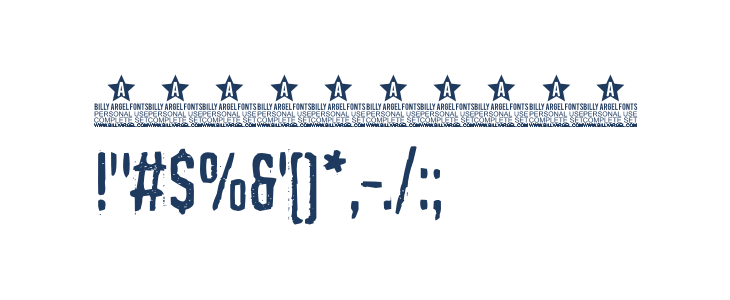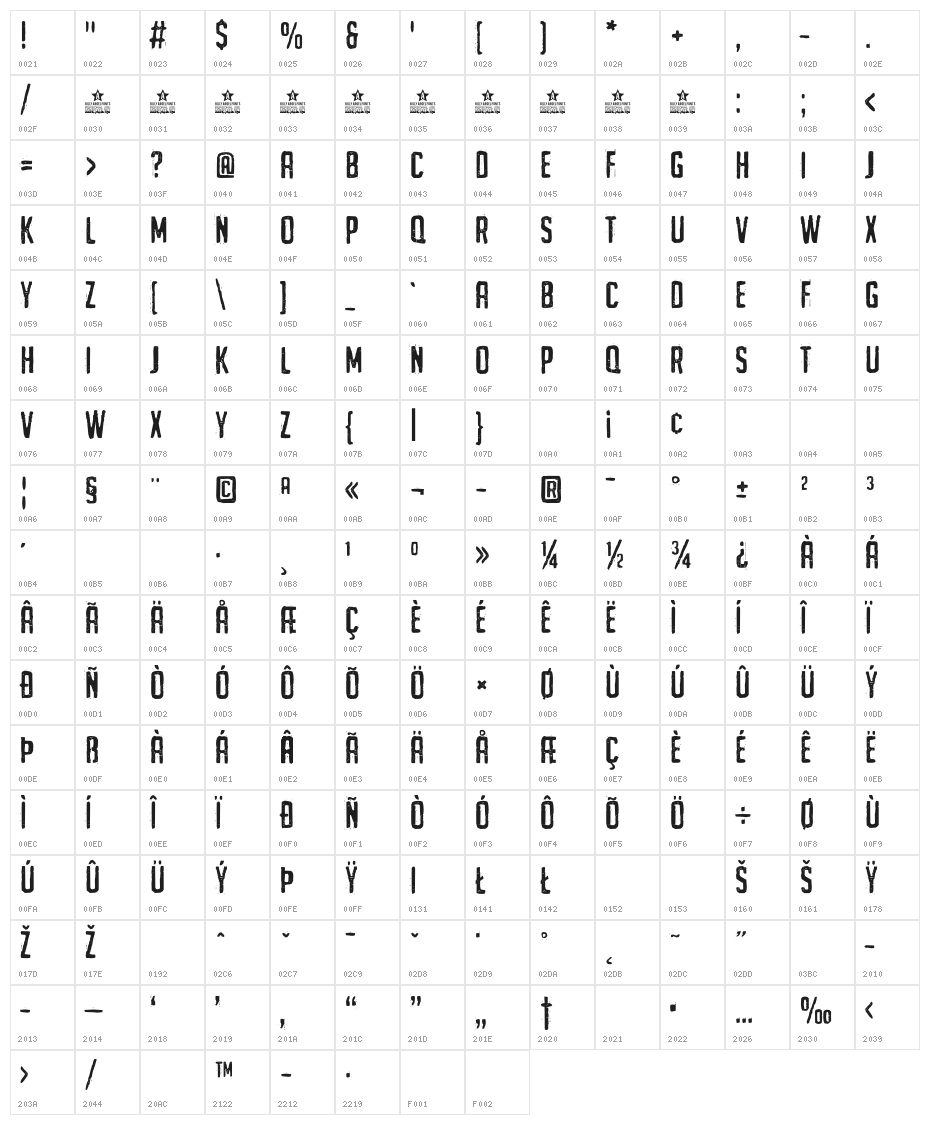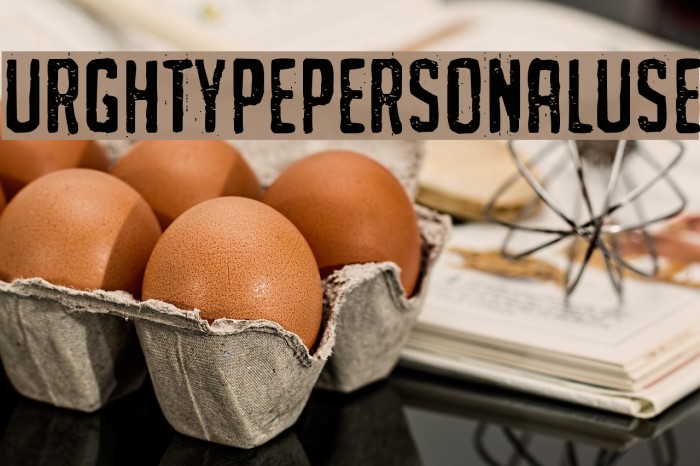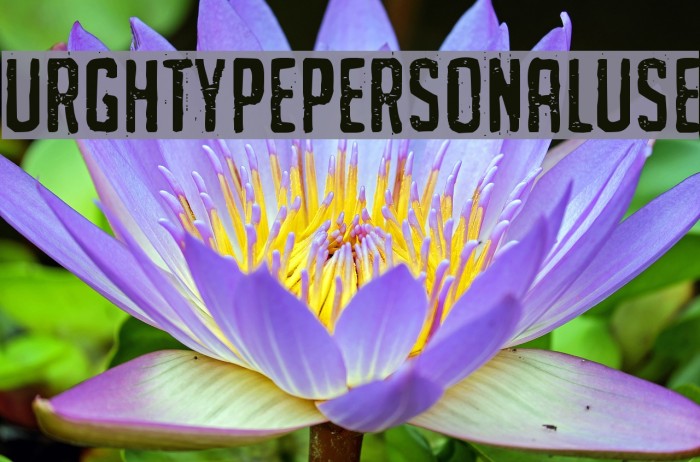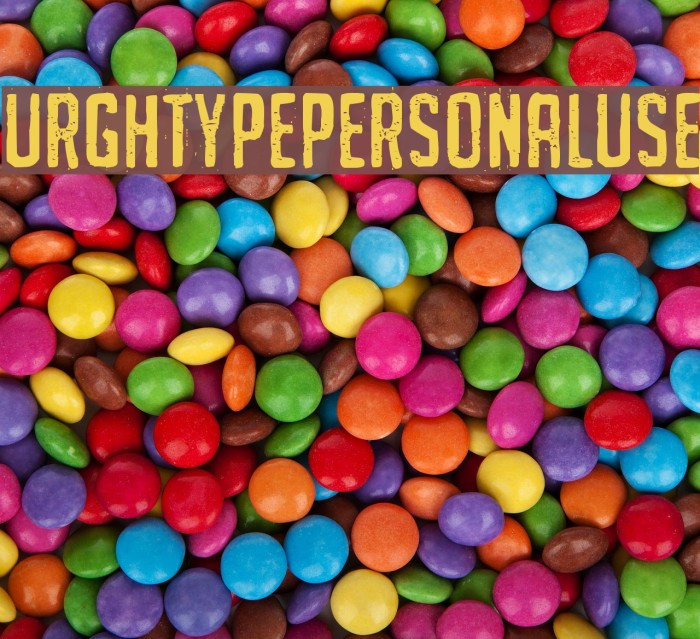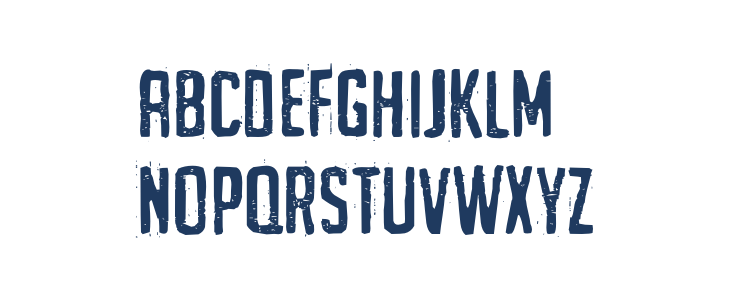
URGHTYPEPERSONALUSE Font
URGHTYPEPERSONALUSE Description
This font features a bold and distressed style, giving it a rugged and vintage appearance. The characters are uppercase and lowercase alphabets, along with numbers and a variety of special characters. The design includes a textured, worn look, reminiscent of old printing techniques or weathered signage. This adds a unique, gritty character to the text, making it stand out with a strong visual impact. The font's boldness and texture make it suitable for projects that require a touch of nostalgia or a raw, edgy feel.
| Proposed Projects | Ideal for posters, album covers, branding for vintage-themed products, or any design needing a bold, gritty aesthetic. |